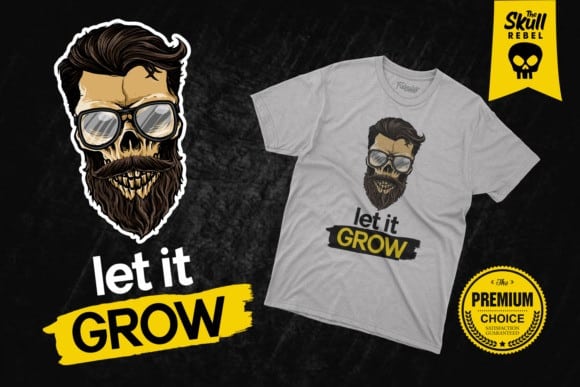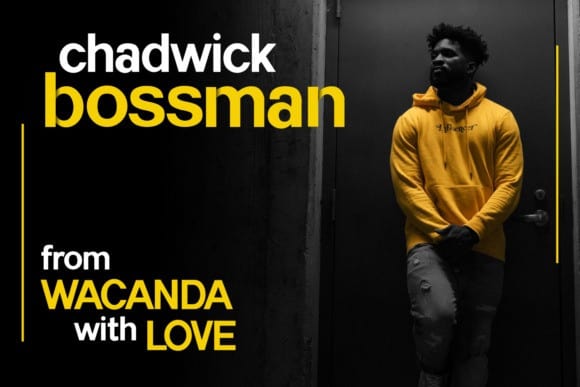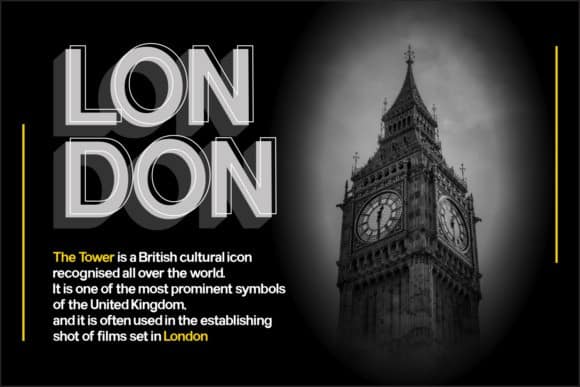
Havertize Sans Serif Font
Introducing Havertize Sans Serif Font. The font is ready to be used for your sports related projects. Made from font designer named fachranheit. This typeface is a bold and simple lettered sans serif font. It can easily be matched to an incredibly large set of projects, so add it to your creative ideas and notice how it makes them stand out!